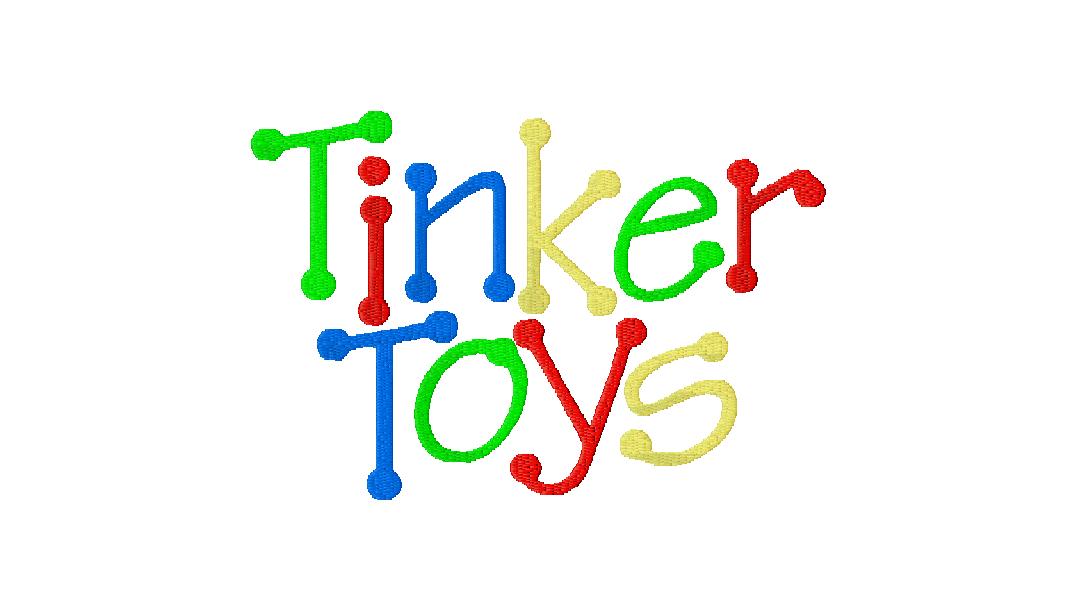
Free Embroidery Font
Thanks for joining us! We have reached Wednesday and its time for yet another free pattern Today we are bringing you an awesome Free Embroidery Font set we call Tinker Toys. This set is both Childlike and Delightful and looks great in Multicolor. Not only for Kids, this set looks great on almost anything! Only free for today so get it now below!  We hope you find this Free Embroidery Font to be exceptional quality and comparable and better than paid designs. Please send us your creations to be featured at FreeEmbroideryDesignFiles.com Also, if you like this free design share it on Facebook by clicking the Like button below. We appreciate your support.